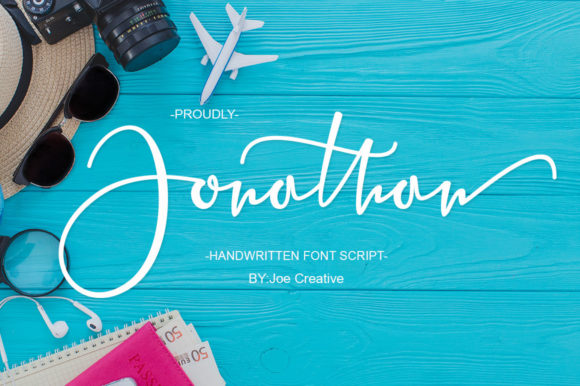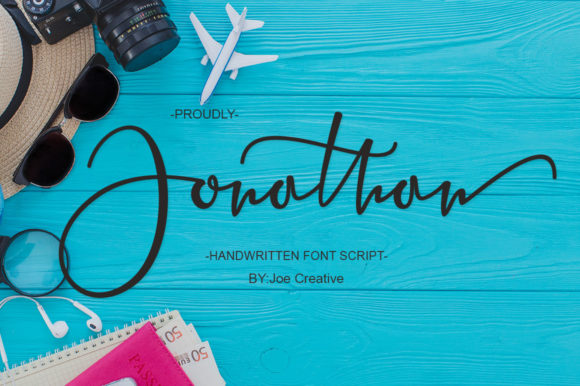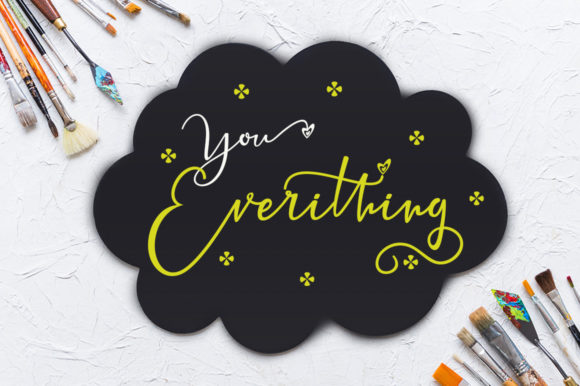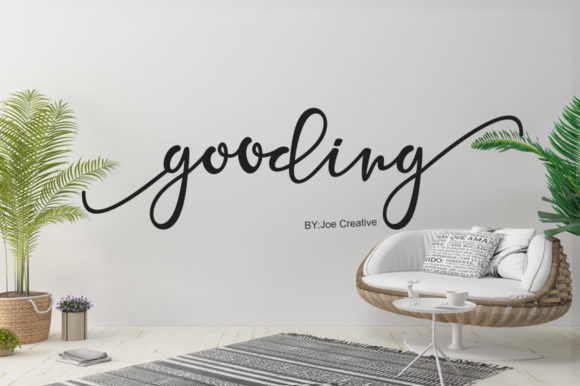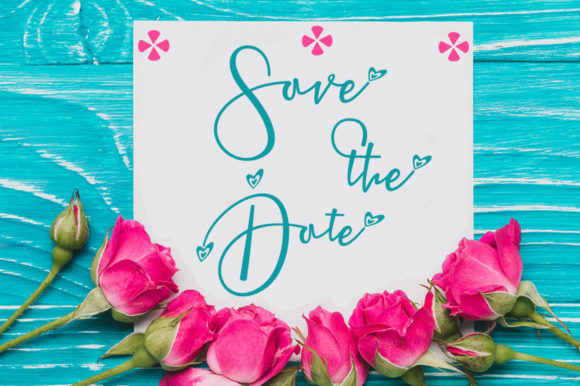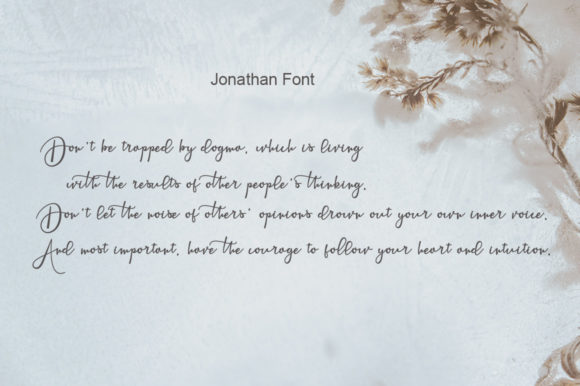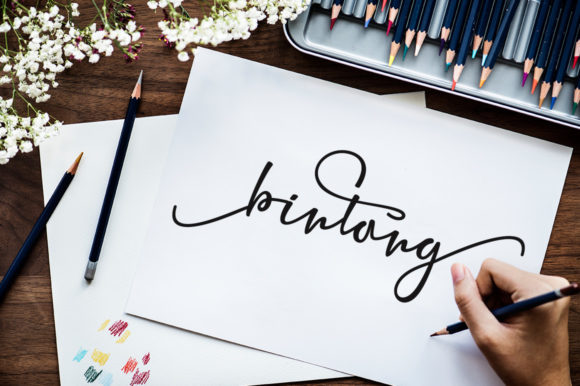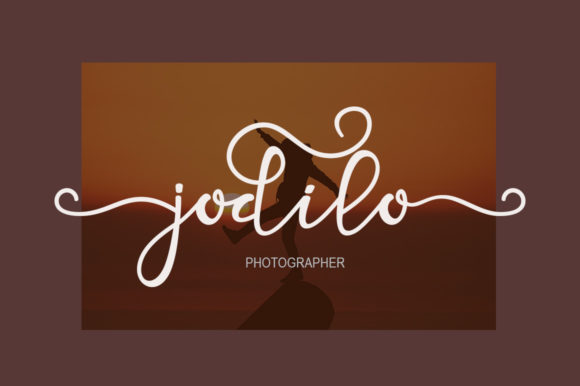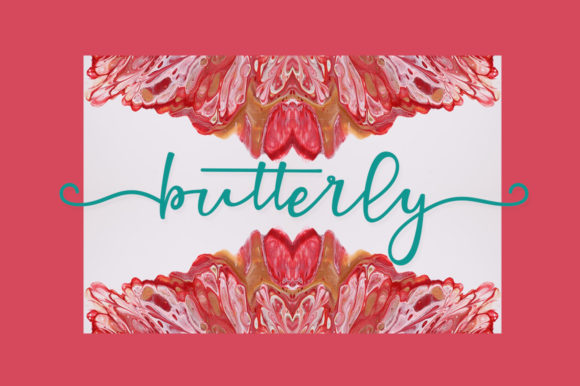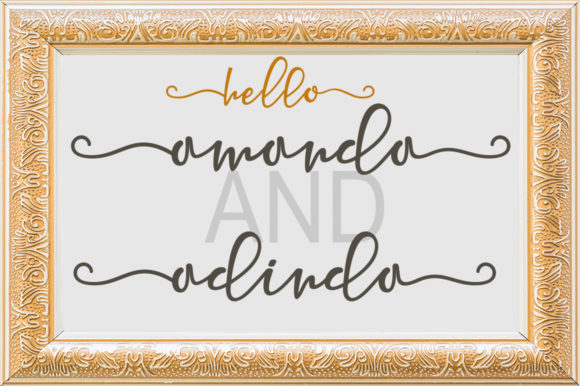
Jonathan Font
About Jonathan Font
“Jonathan Script” emerges as a font that embodies stylish calligraphy, graced with a varying baseline, smooth lines, and a timeless elegance. With its classic and sophisticated touch, it becomes a versatile choice for a myriad of purposes. From headings to signatures, logos to wedding invitations, t-shirts to letterheads, signage to news, posters to badges, this font’s versatility knows no bounds. Its PUA encoding ensures effortless access to all the glyphs and swashes, inviting you to unleash your creative potential.
Envision “Jonathan Script” as a brush dipped in elegance, each stroke meticulously crafted to create a symphony of classic beauty. Its varying baseline and graceful lines infuse a sense of timeless sophistication, transforming your projects into visual masterpieces that exude charm. As you weave this font into your creations, you’ll embark on a journey where your concepts evolve into captivating visual narratives.
Beyond its visual allure, “Jonathan Script” captures an essence of authenticity and creative expression. Its calligraphic nature adds a personal touch, turning your designs into more than just visuals – they become expressions of artistry and elegance.
“Jonathan Script” stands as a versatile companion in your design journey. Its adaptability ensures seamless harmony with various styles, themes, and intentions. Whether you’re crafting an unforgettable wedding invitation, designing a striking logo, or adding a touch of sophistication to your t-shirt prints, this font amplifies the resonance of your message.
In a world where design communicates volumes and evokes emotions, “Jonathan Script” becomes your medium for crafting designs that leave a lasting impression. Let its smooth lines and varying baseline be the artistic flourishes that enhance your creations, infusing them with a touch of timeless elegance. Embrace the stylish allure of “Jonathan Script” and watch as it transforms your projects into captivating showcases of artistic excellence, resonating deeply with all who engage with them.